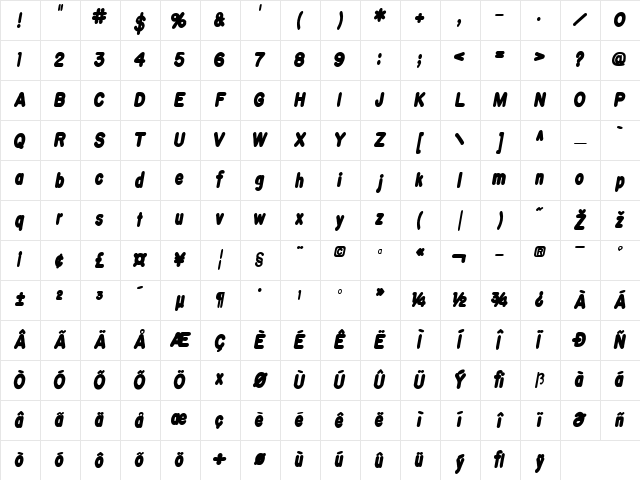
Complete Burnt Toast WithJam glyph index. Displaying only characters natively supported by Burnt Toast WithJam font.
Burnt Toast is a composed and adaptable typeface that performs quietly and consistently across a wide range of design contexts.